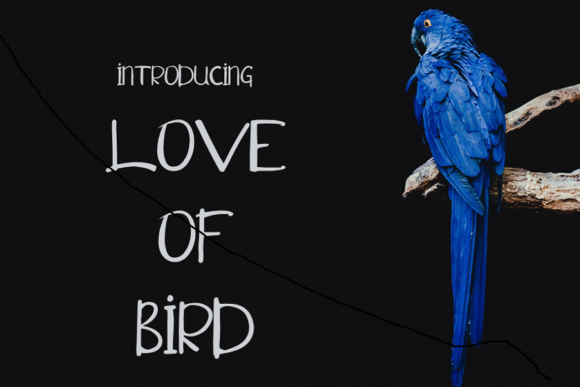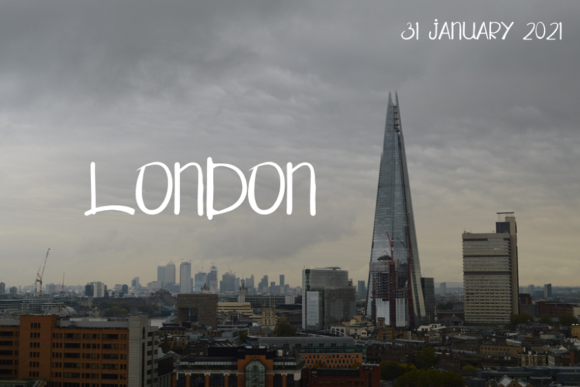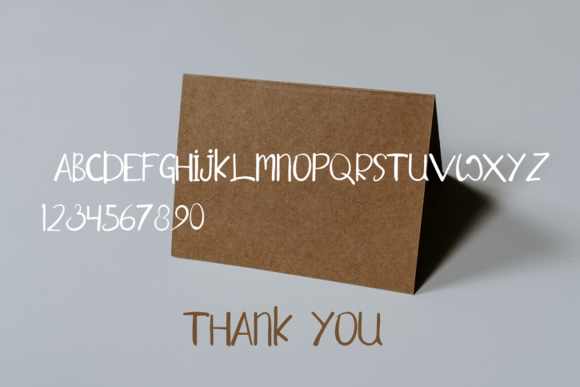
Love of Bird Font
Love of Bird is a simple and casual handwritten font. This versatile script font has a wide range of applications ranging from greeting cards to kids’ crafts, and is guaranteed to add a sweet touch to your next design.